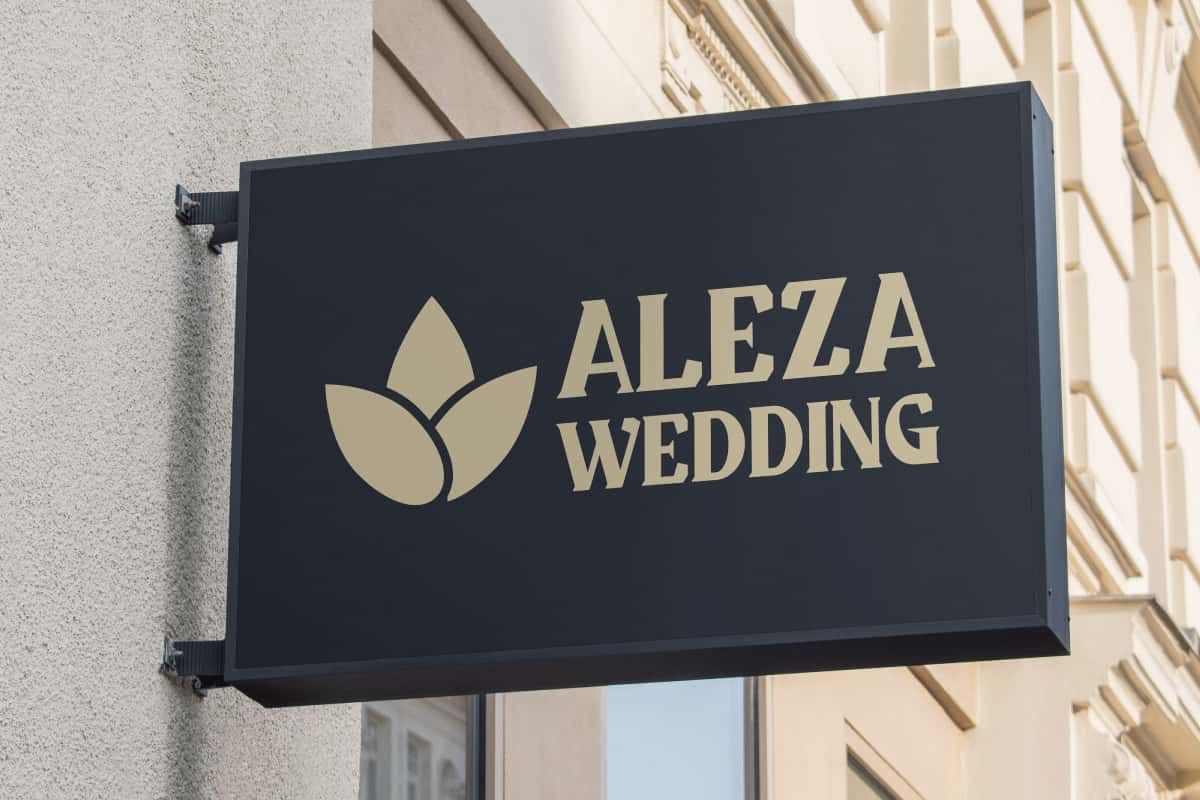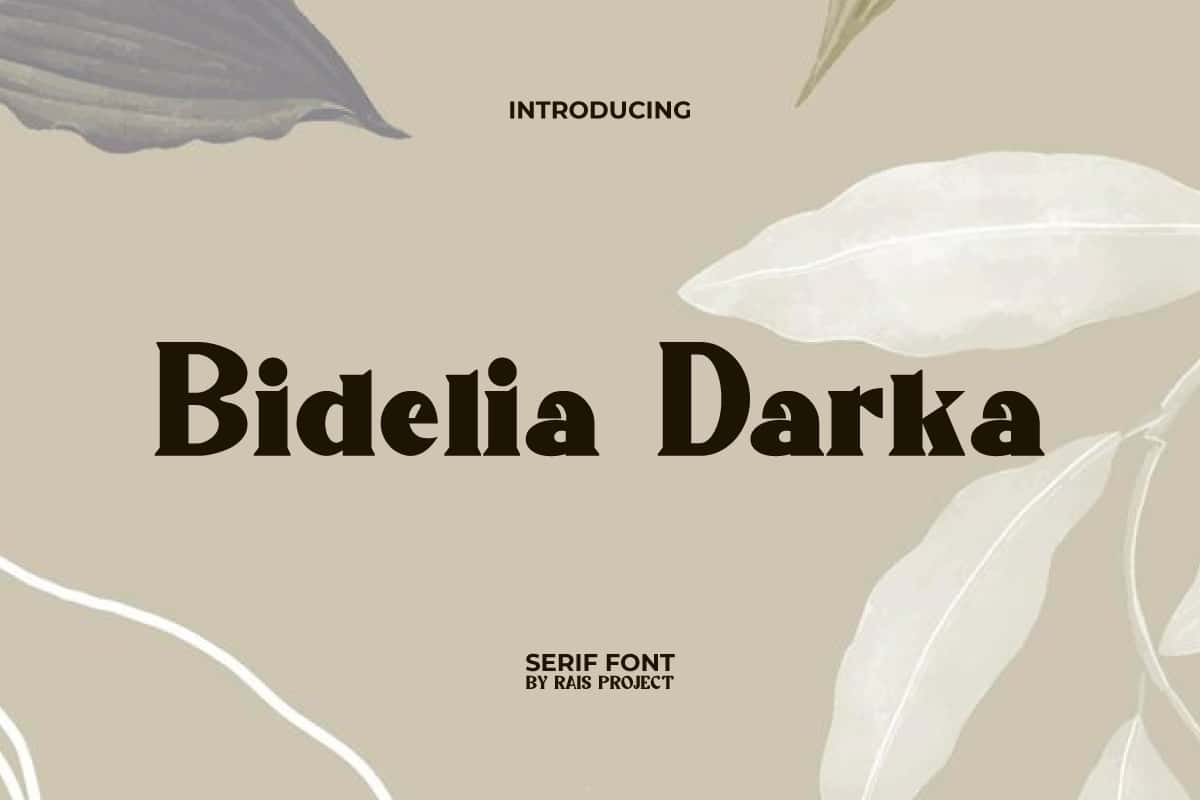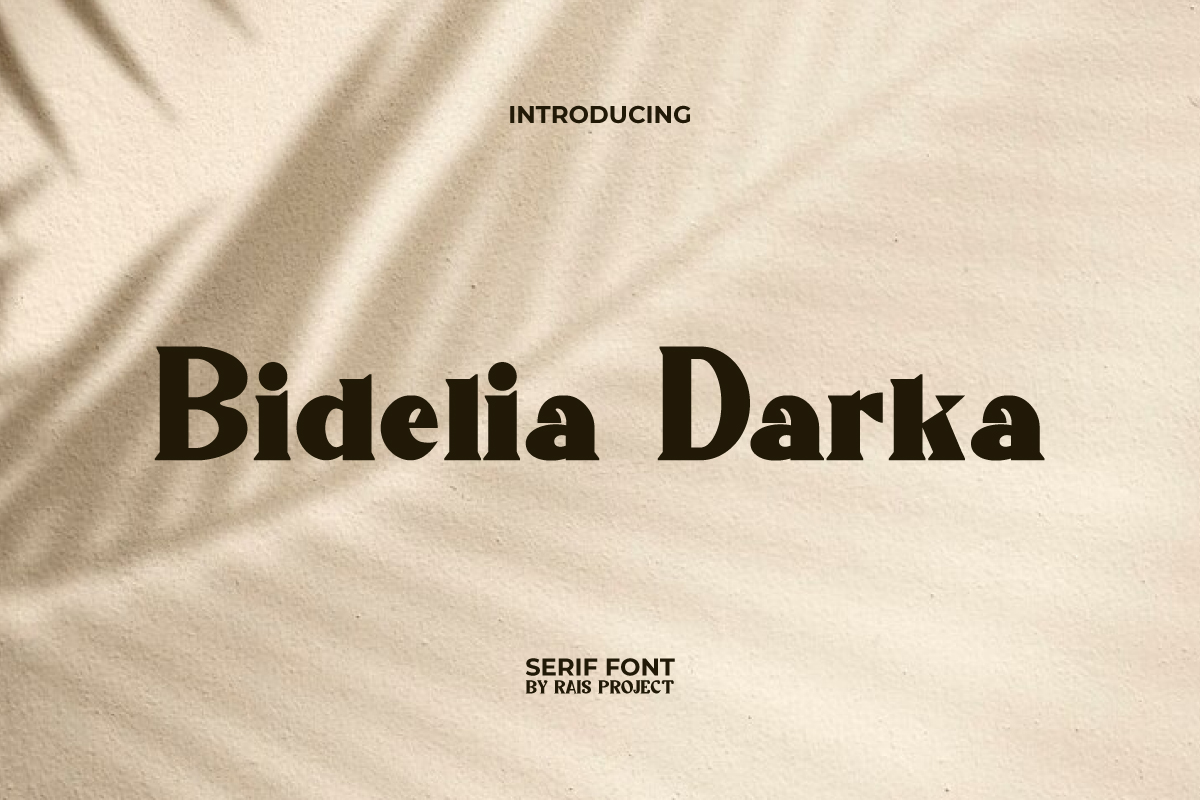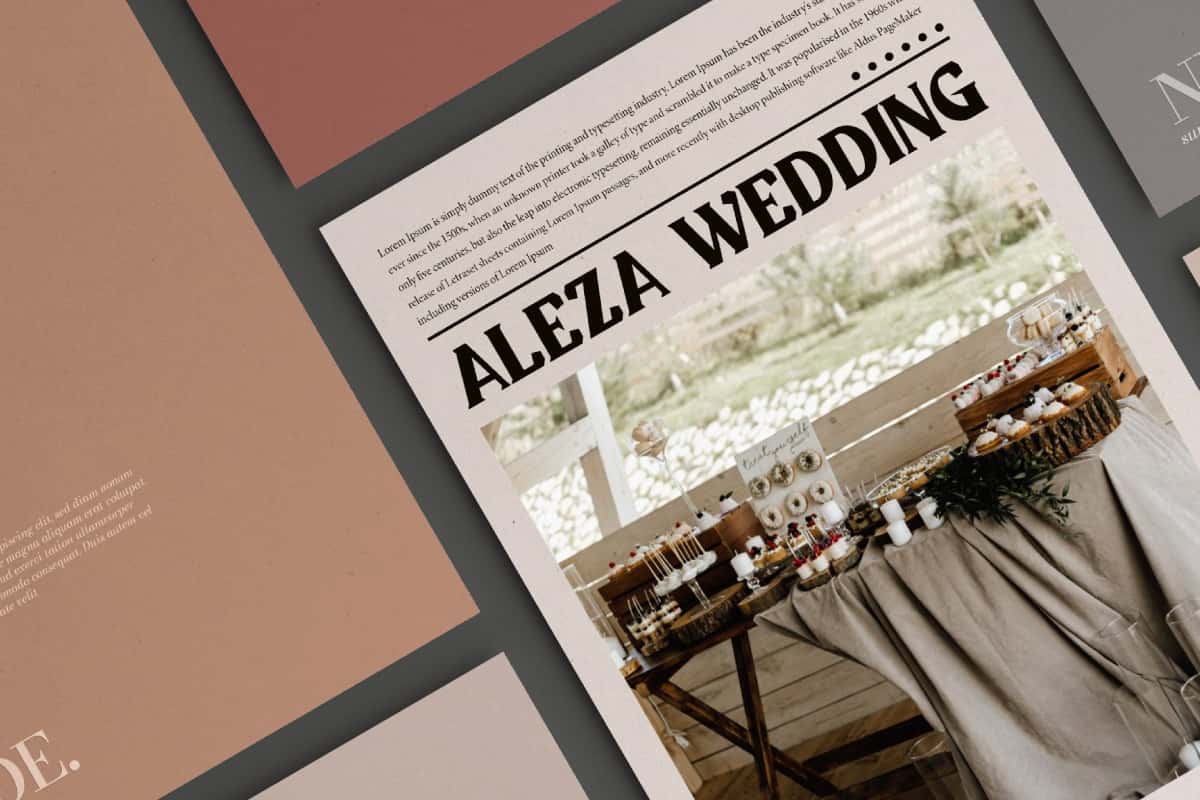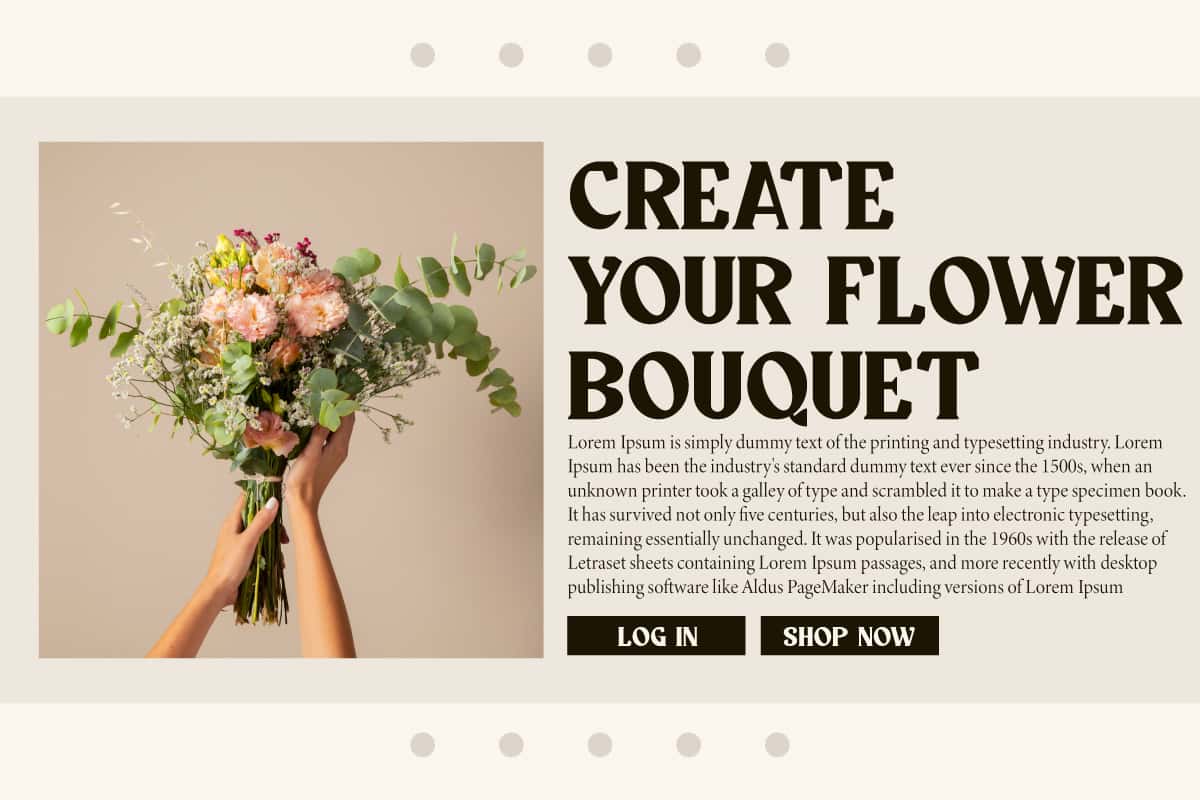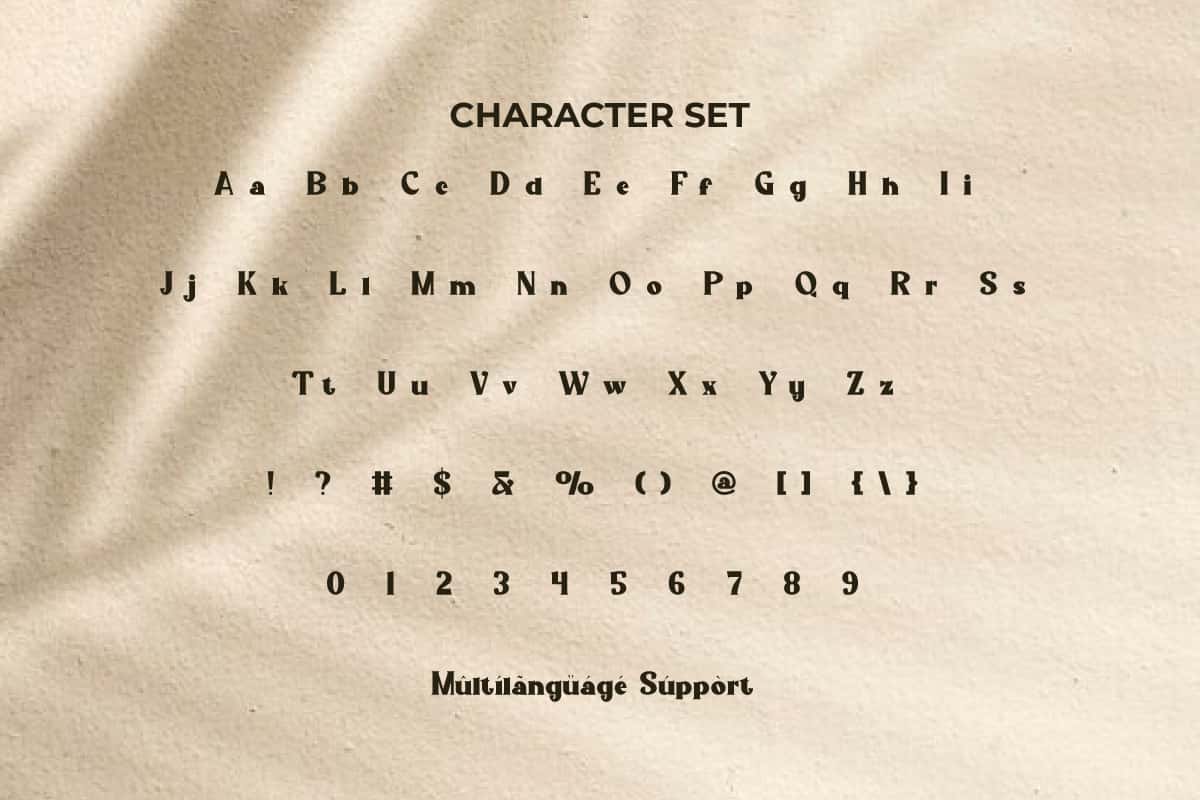
Bidelia Darka Font
Bidelia Darka Font is a cute display serif font with bold sharp letter. Use this font now to make your design standout.
Bidelia Darka Font is a cute special display serif font with bold and sharp letter. The serif style make it much unique and clean for your design. It will be good for any designs, such as signage, advertisement, brand image, custom design, invitation, label, marketing material, poster, product packaging, quotes, stationery, website page, and more!
Introducing Bidelia Darka Display Font – a bold, artistic, and modern typeface designed to bring unique character and flair to your creative projects. With its strong curves, stylish strokes, and distinctive display style, Bidelia Darka is perfect for anyone who wants their designs to stand out with confidence and originality. From branding and logos to posters, packaging, merchandise, and social media graphics, this font is crafted to make a lasting impression.
Bidelia Darka Display Font blends creativity with elegance, offering a versatile solution for designers and businesses alike. Its striking letterforms are ideal for fashion branding, event promotions, lifestyle blogs, and digital campaigns that demand attention. With excellent readability and a bold personality, Bidelia Darka works seamlessly across both print and digital platforms, making it an essential addition to your font collection.
In today’s design-driven world, typography plays a vital role in building strong brand identity. Bidelia Darka Display Font provides the perfect balance of boldness and elegance, helping your work shine in competitive markets. Its unique design ensures that your visuals are not only memorable but also timeless.
Bidelia Darka Display Font includes a full set of ALL CAPS for Uppercase and Lowercase Letters, Numerals, and large range of Punctuation. This adorable font will be suitable for various industries, such as fashion, cafe, event or festival, florist, bakery and pastry, printing, publishing, photography, etc.